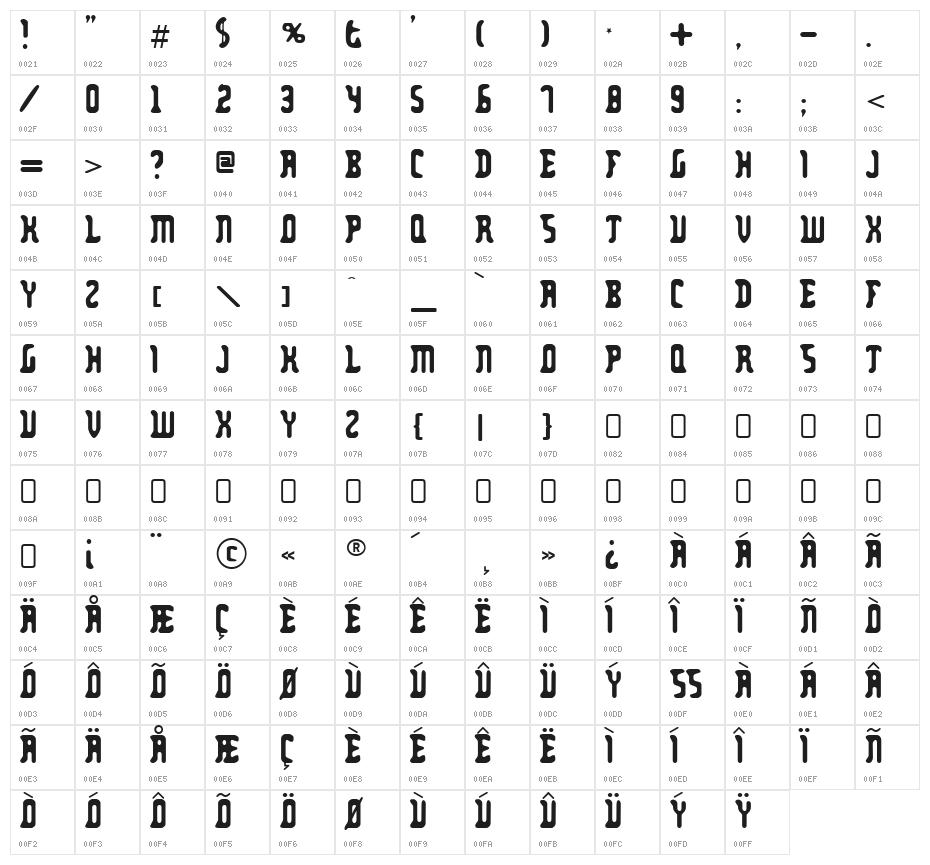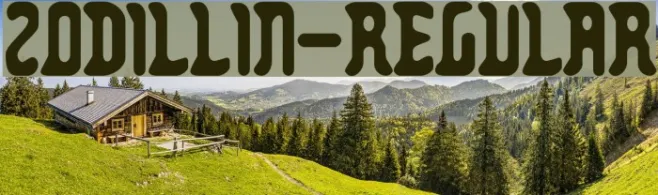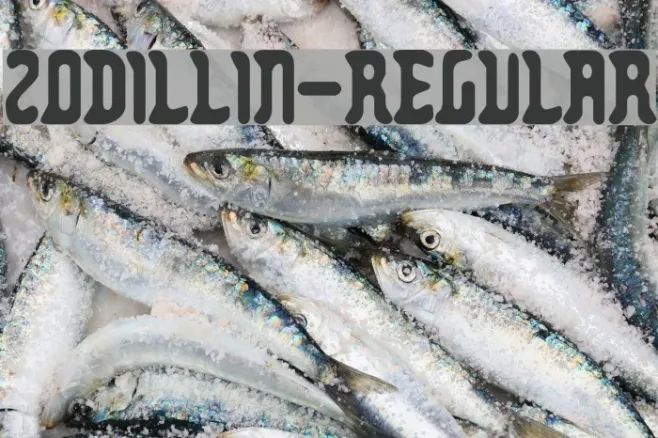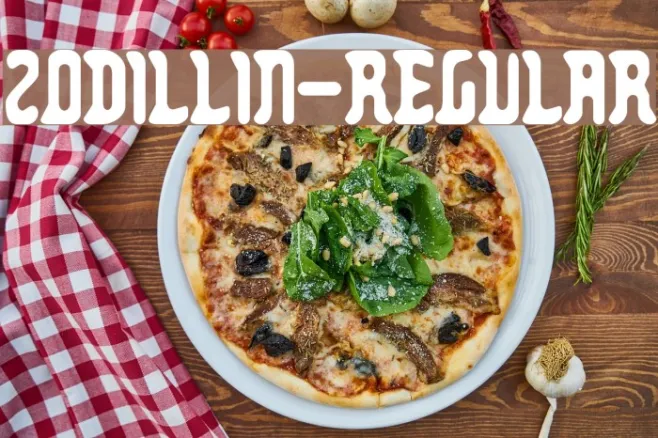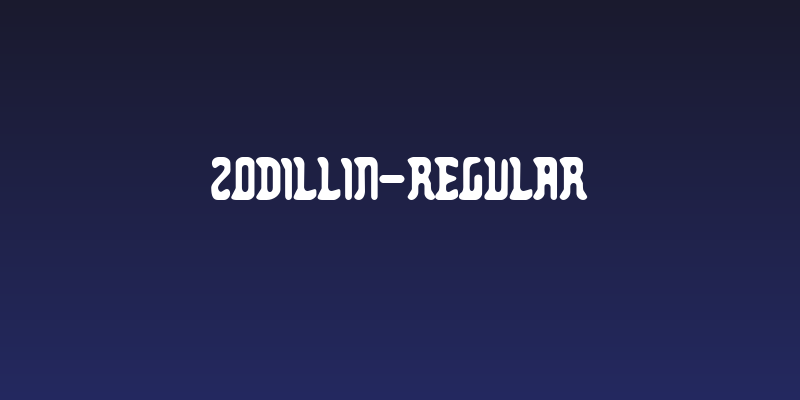
Zodillin-Regular Font
Zodillin-Regular Description
This font features a bold and striking design with thick, rounded strokes that create a strong visual impact. The characters are uniformly wide, giving it a monospaced appearance, yet they maintain a playful and decorative style. The uppercase and lowercase letters share similar characteristics, with a consistent weight and width throughout. The numbers and special characters are designed to match the boldness of the alphabet, ensuring a cohesive look across all text. This font's unique style makes it stand out, ideal for projects that require a distinctive and eye-catching typeface.
| Proposed Projects | Ideal for posters, logos, branding, and any design needing a bold, standout typeface. |